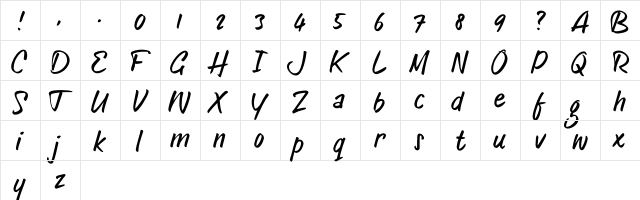
Old Letterhand TRIAL Old Letterhand regular
| Foundry | JJW van der Ham |
| Designer | JJW van der Ham / JOEBOB graphics |
Design Context for Old Letterhand TRIAL Typeface
Old Letterhand TRIAL flows with the natural rhythm of handwritten lettering, making it ideal for designs that call for warmth and personal expression.